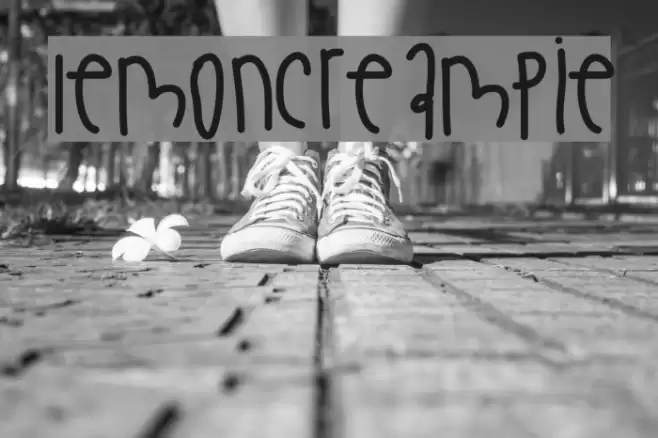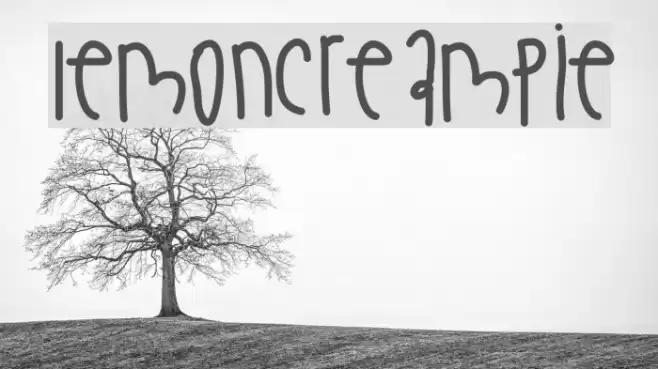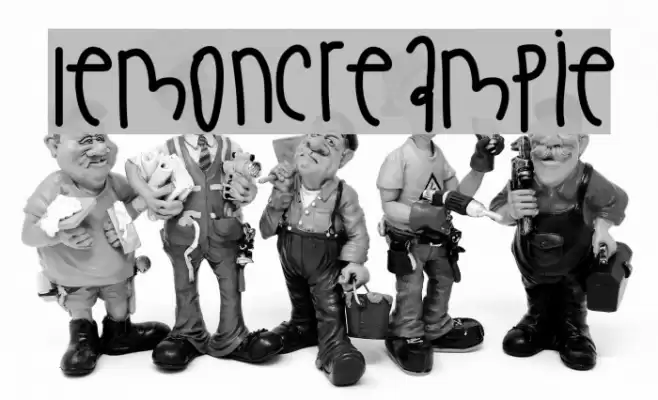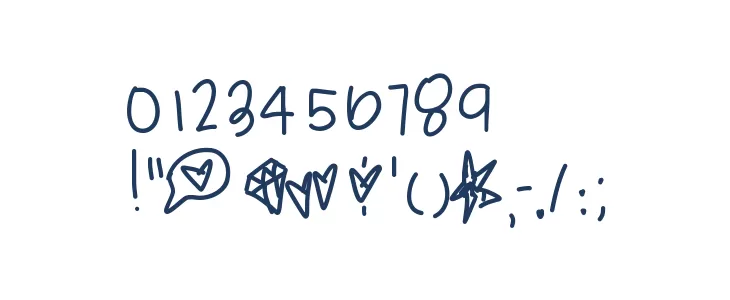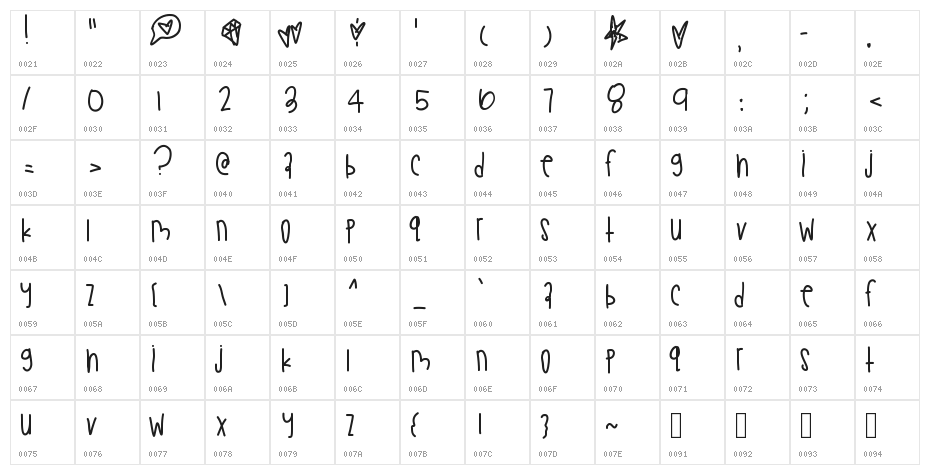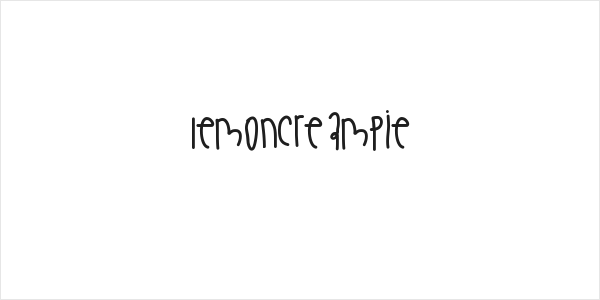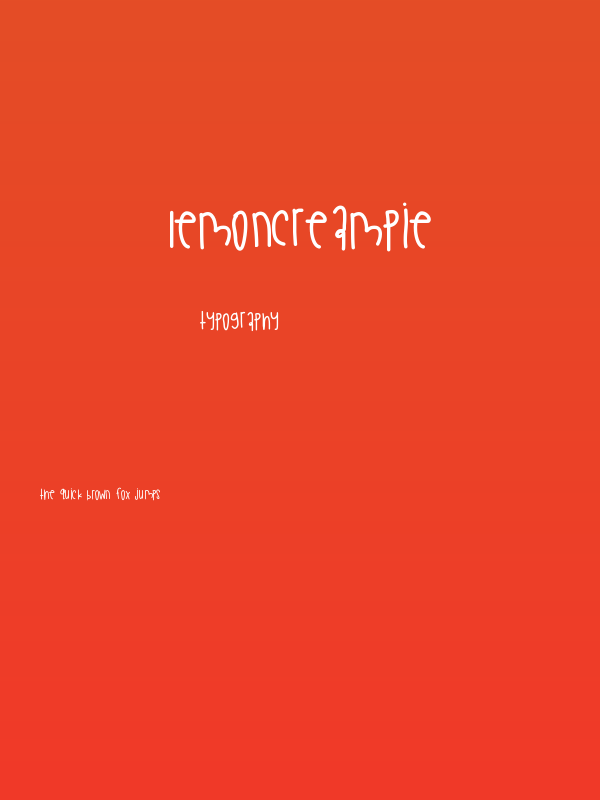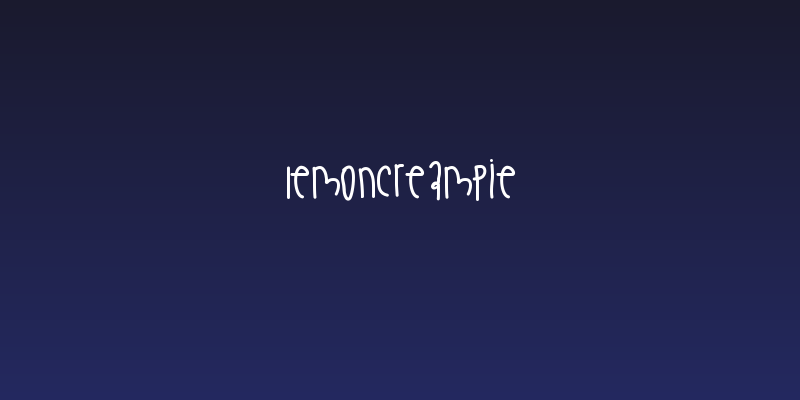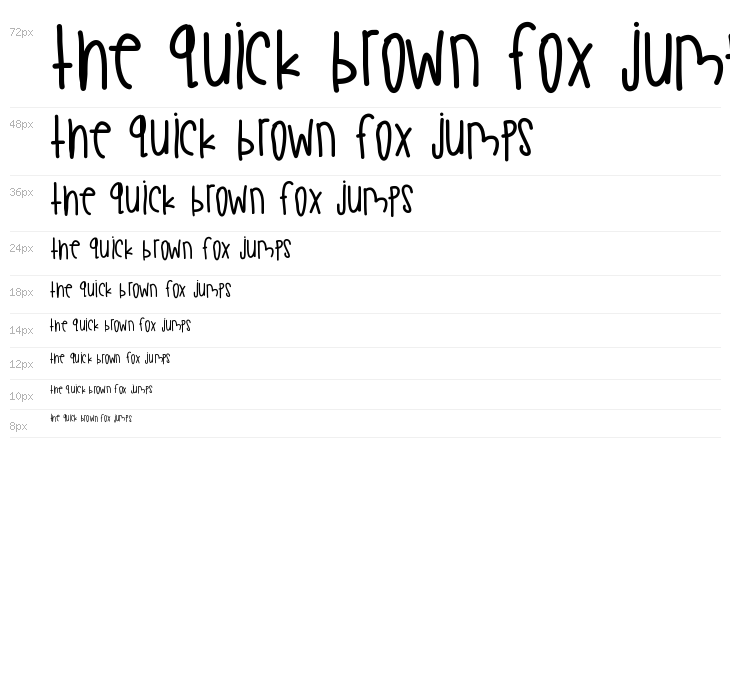
LemonCreamPie Font
LemonCreamPie Description
This playful and whimsical font features a handwritten style with a casual, friendly appearance. The letters are rounded and slightly irregular, giving them a charming, informal look. The strokes are consistent in thickness, providing a uniform appearance across all characters. The font includes both uppercase and lowercase letters, numerals, and a variety of special characters, making it versatile for different design needs. Its unique style is perfect for projects that require a personal touch or a fun, lighthearted vibe.
A playful, handwritten font with rounded, irregular characters from Uncategorized fonts.
- Proposed Projects: Ideal for greeting cards, children's books, playful branding, and social media graphics.
- Overall Style: Casual, Whimsical
- Use Case: Headlines, Informal text, Creative projects